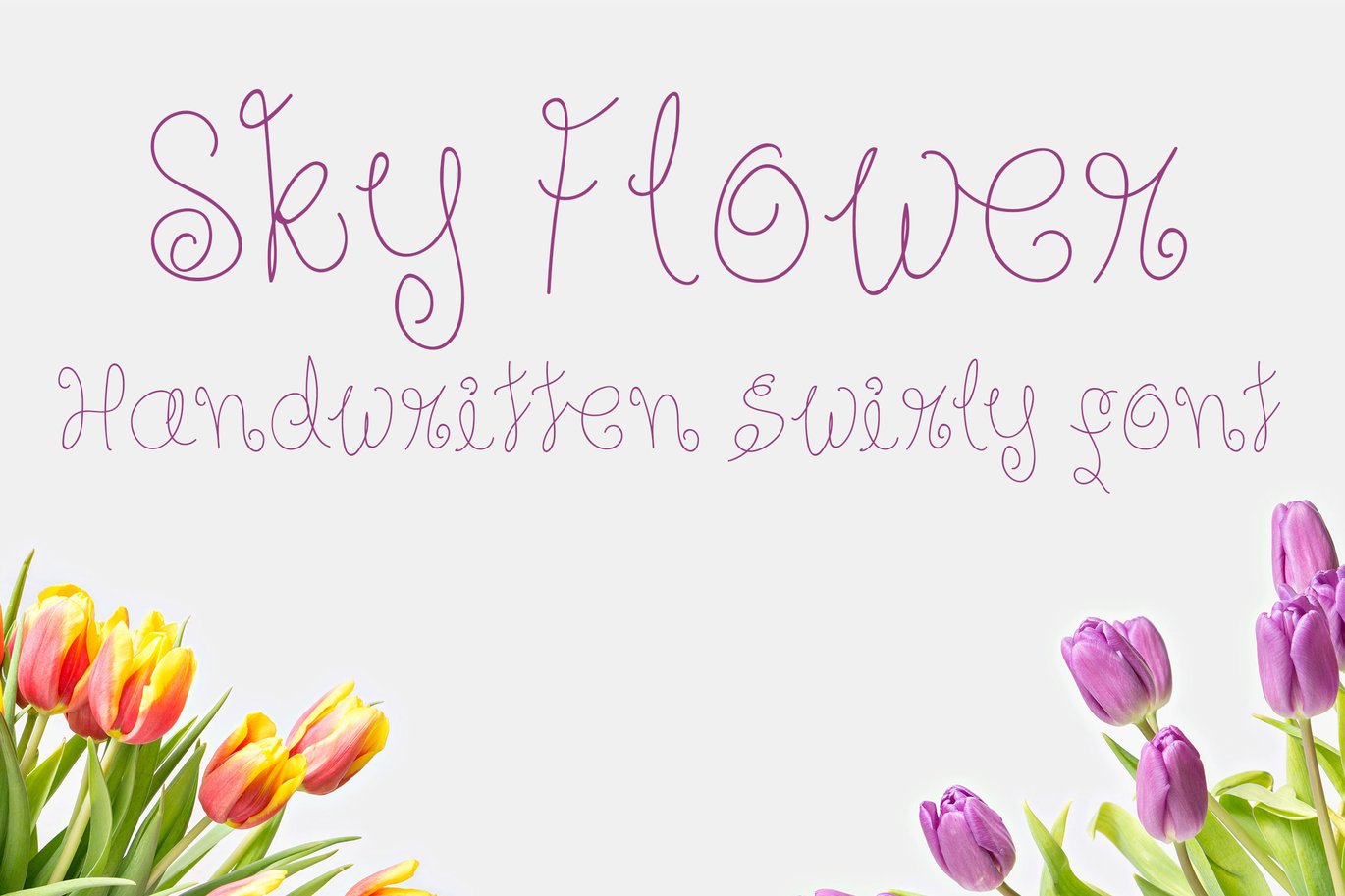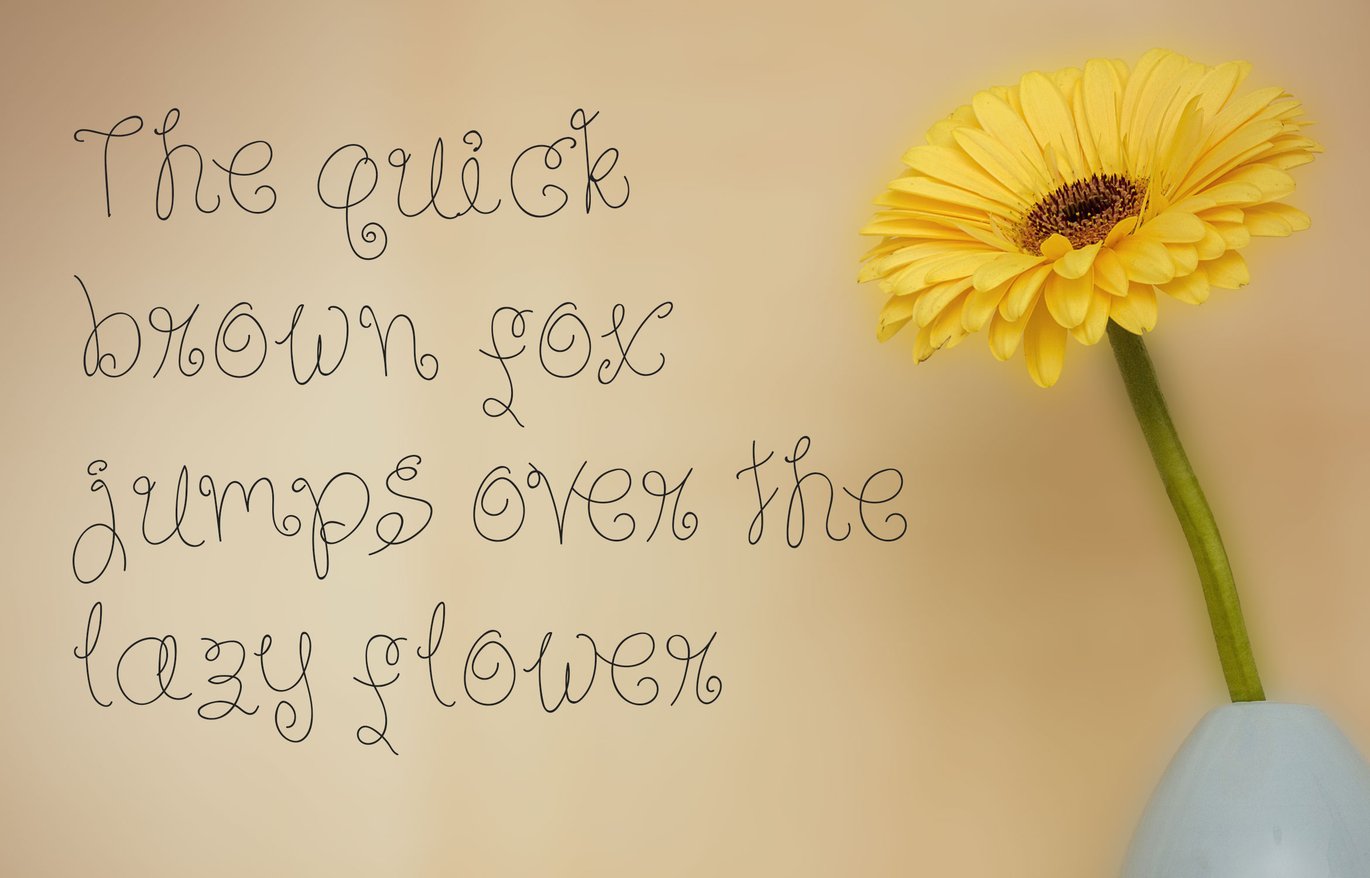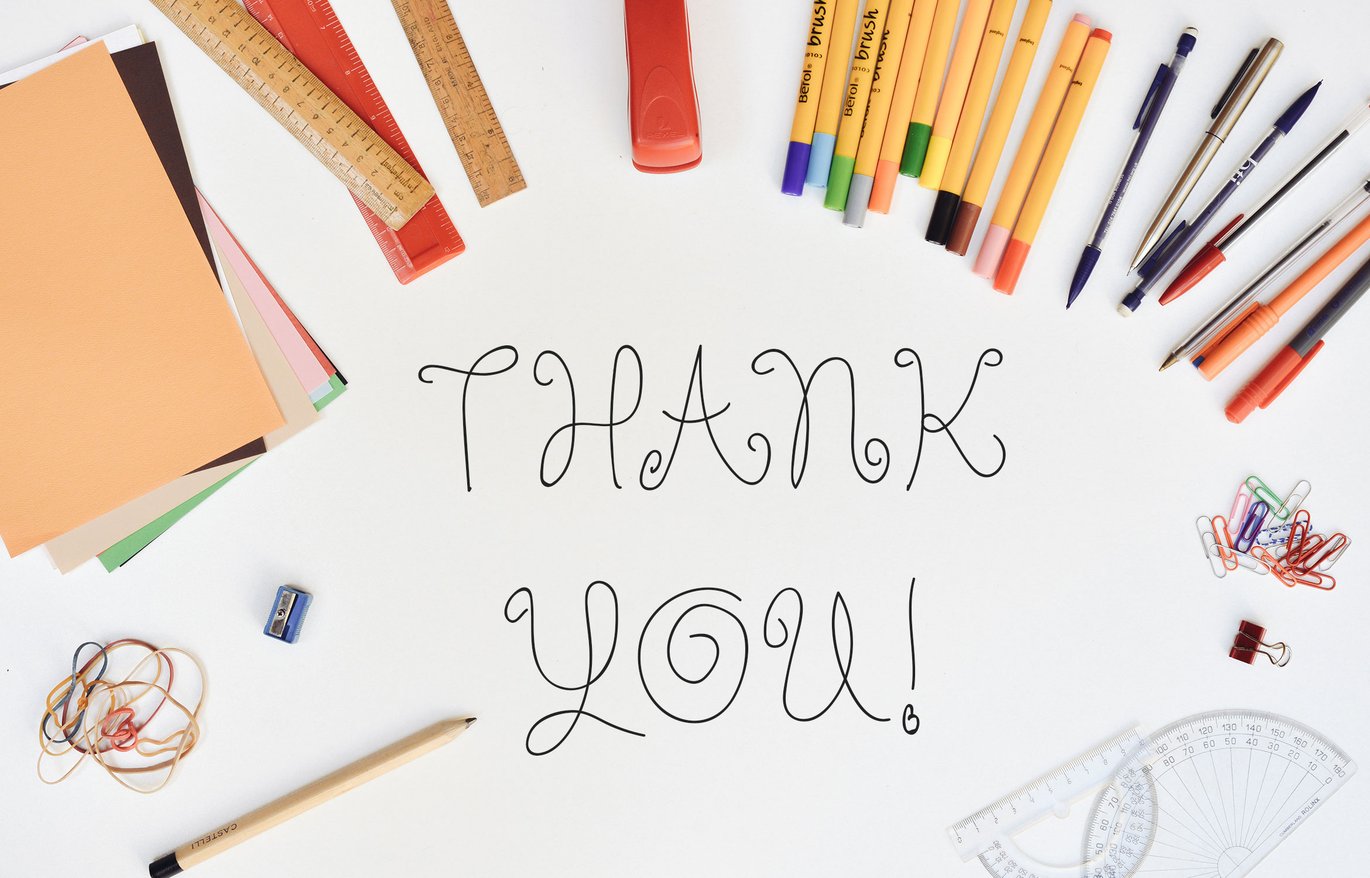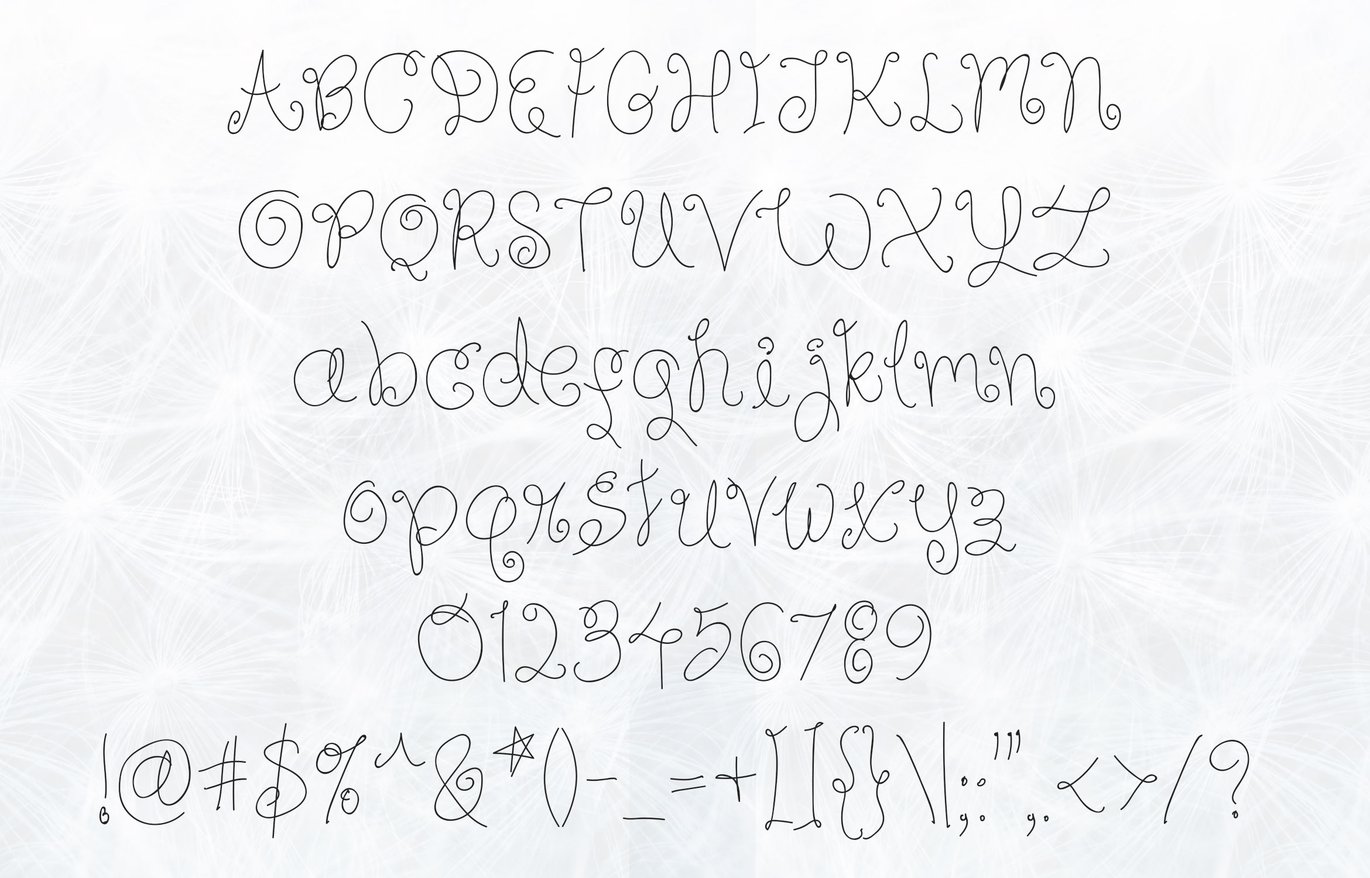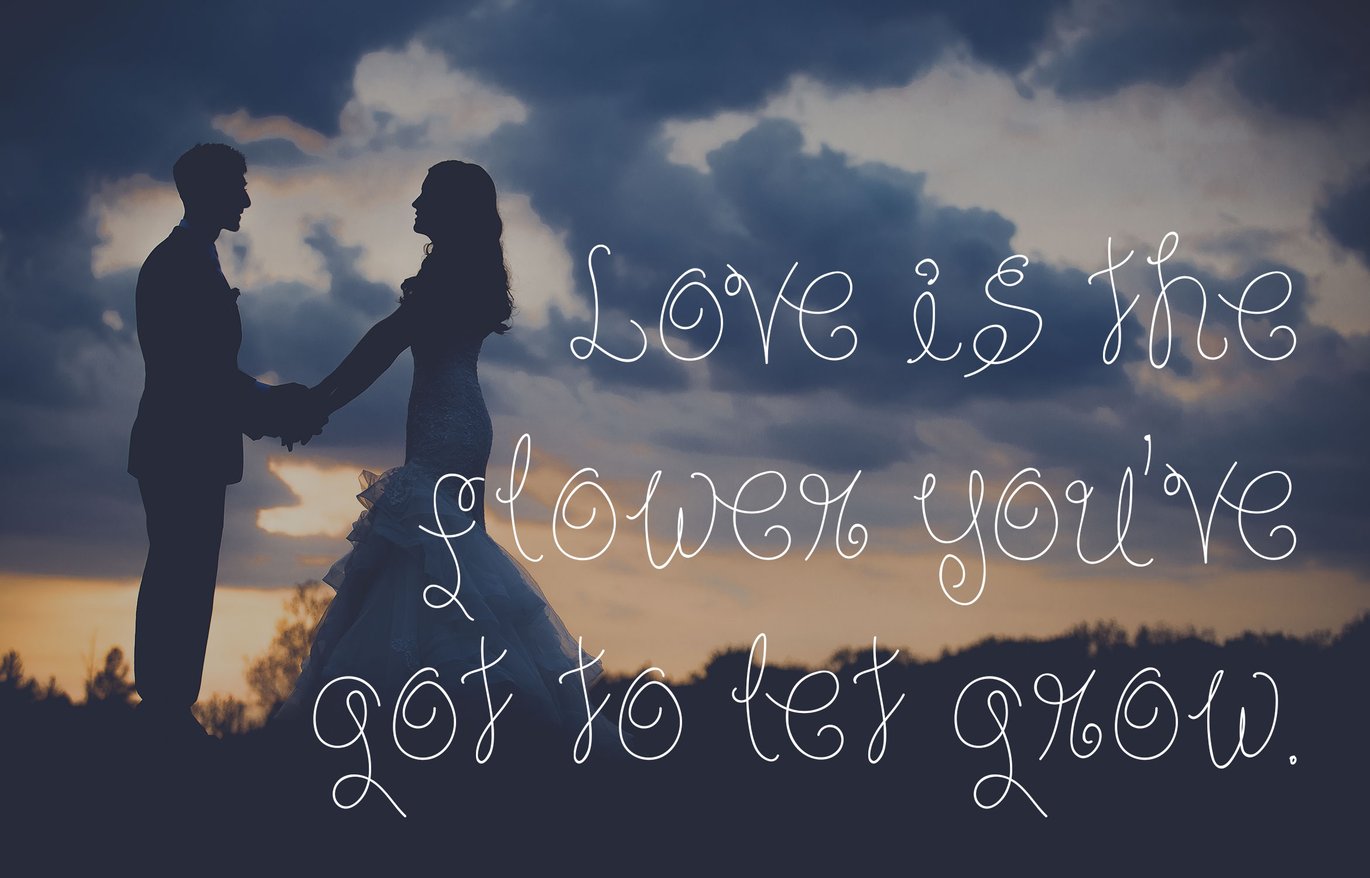
Sky Flower – Handwritten Font
Introducing the new Sky Flower – Handwritten swirly font, Its uniqueness of every character makes the font perfect for the invitations, quotes, branding, decorations and much more.